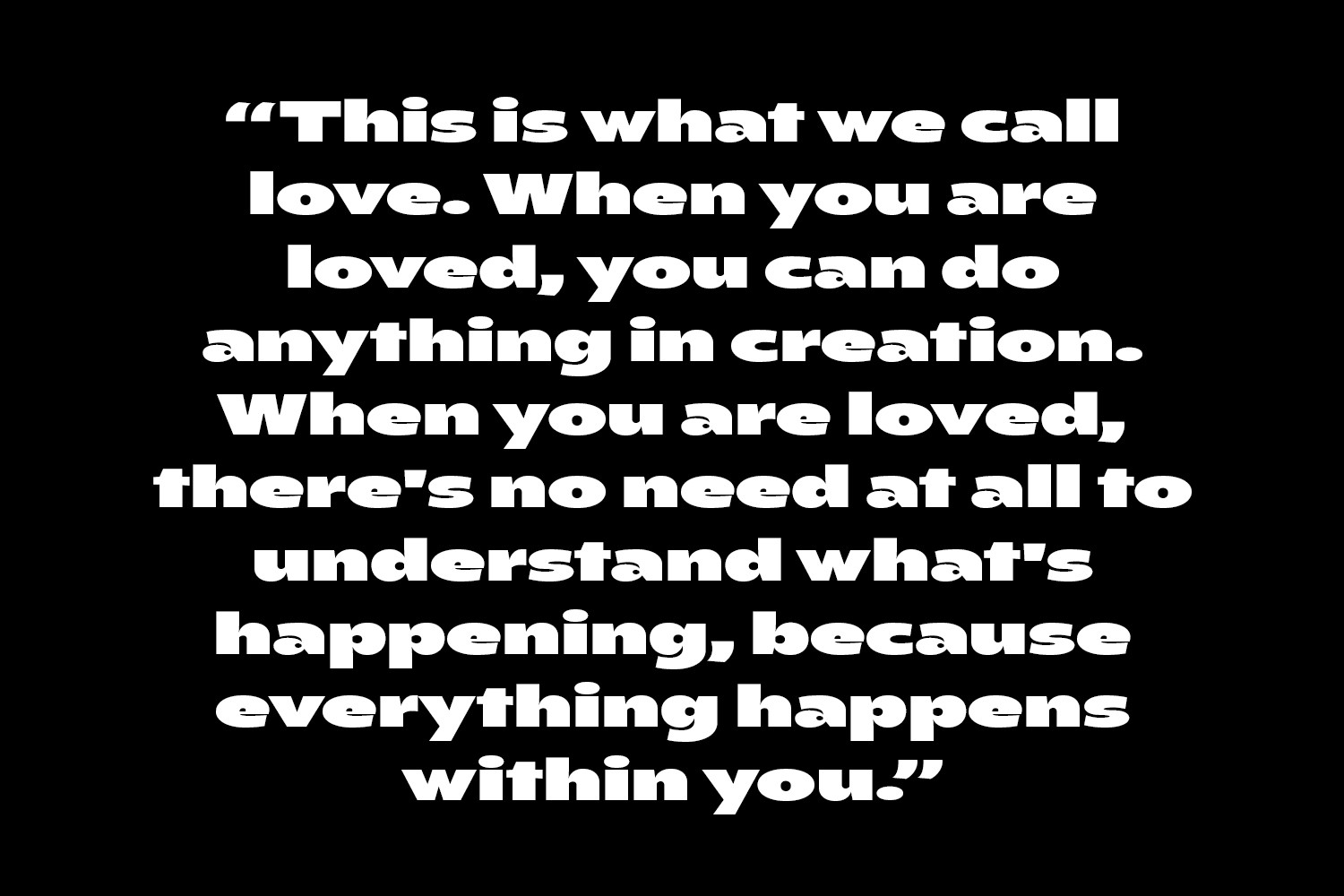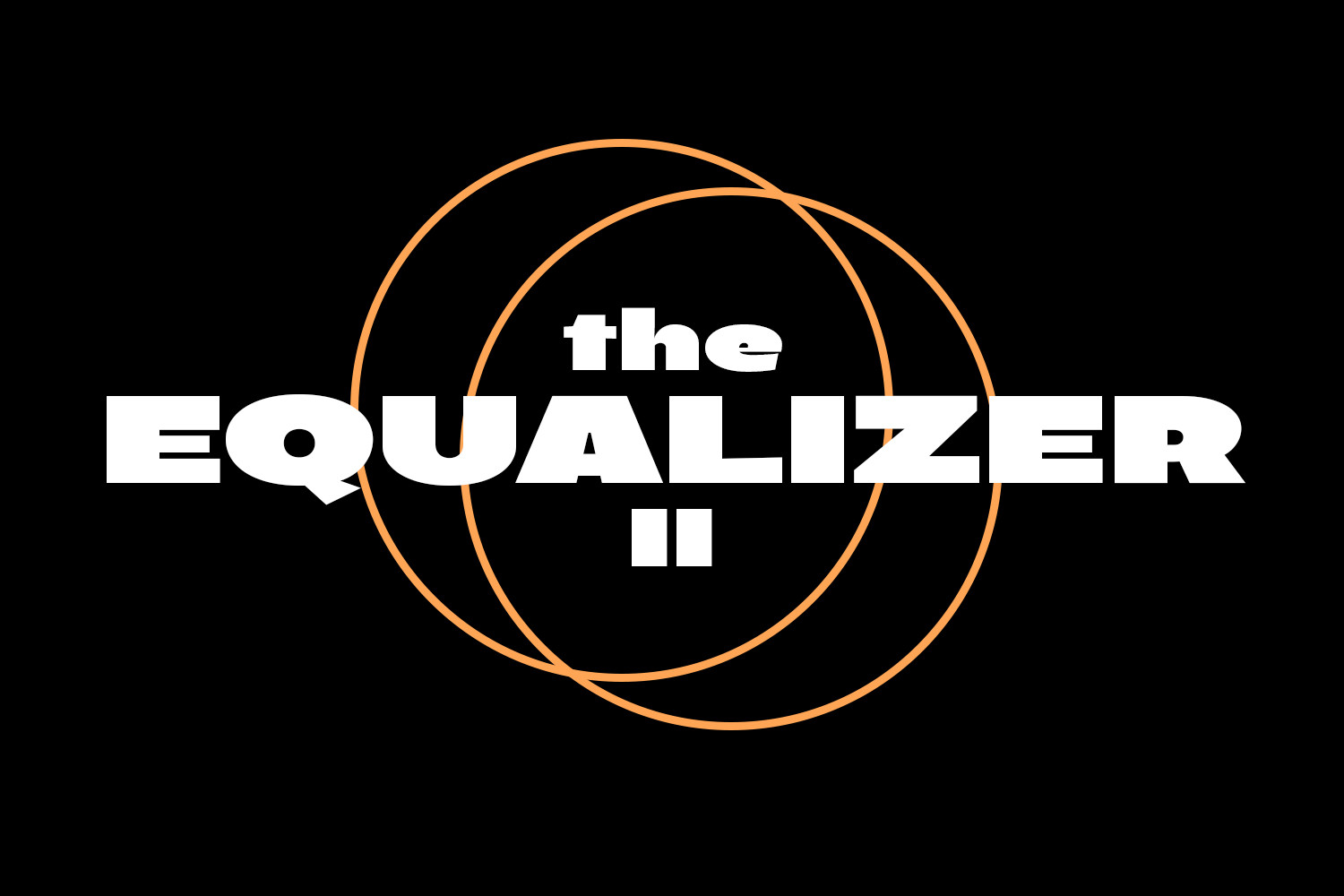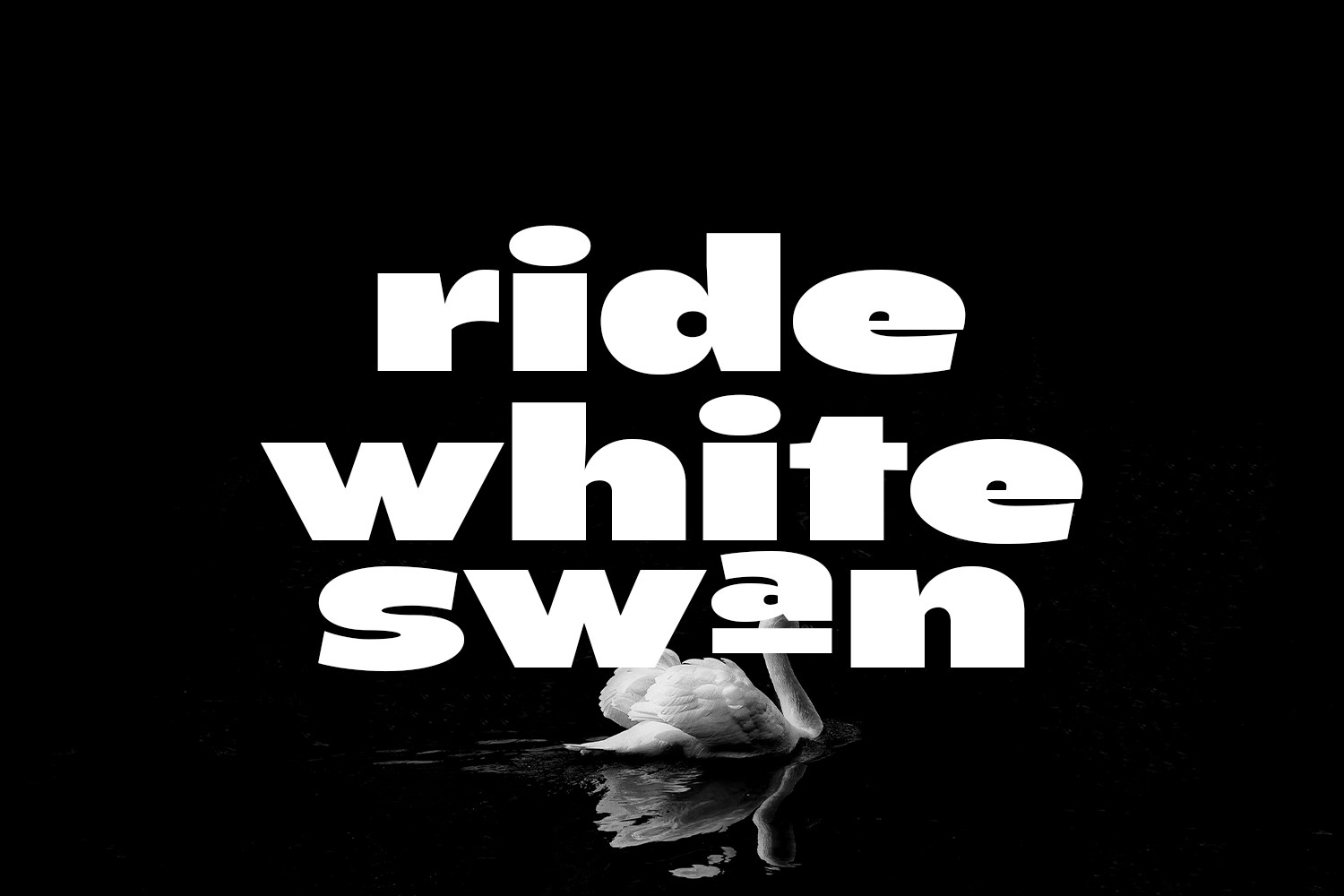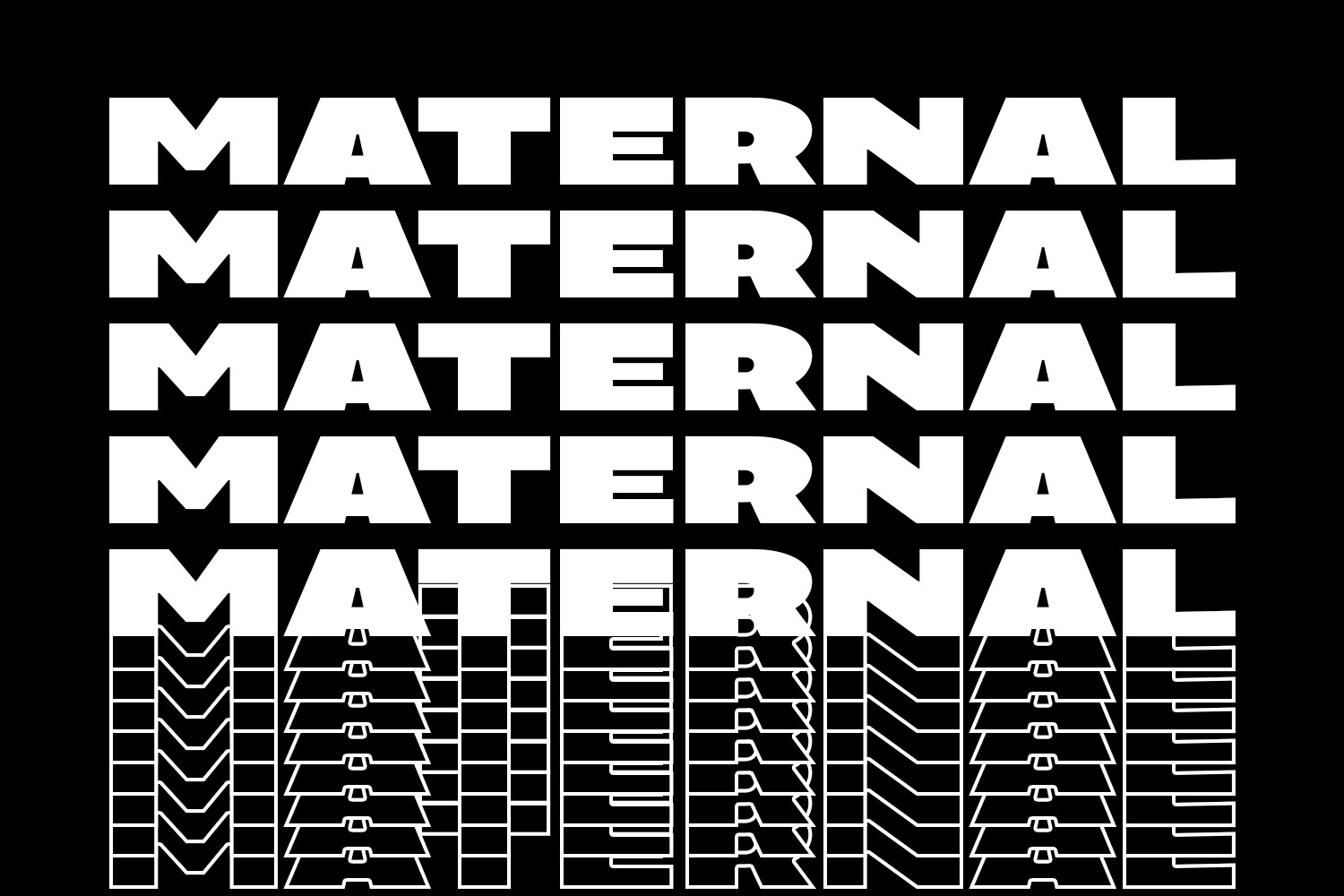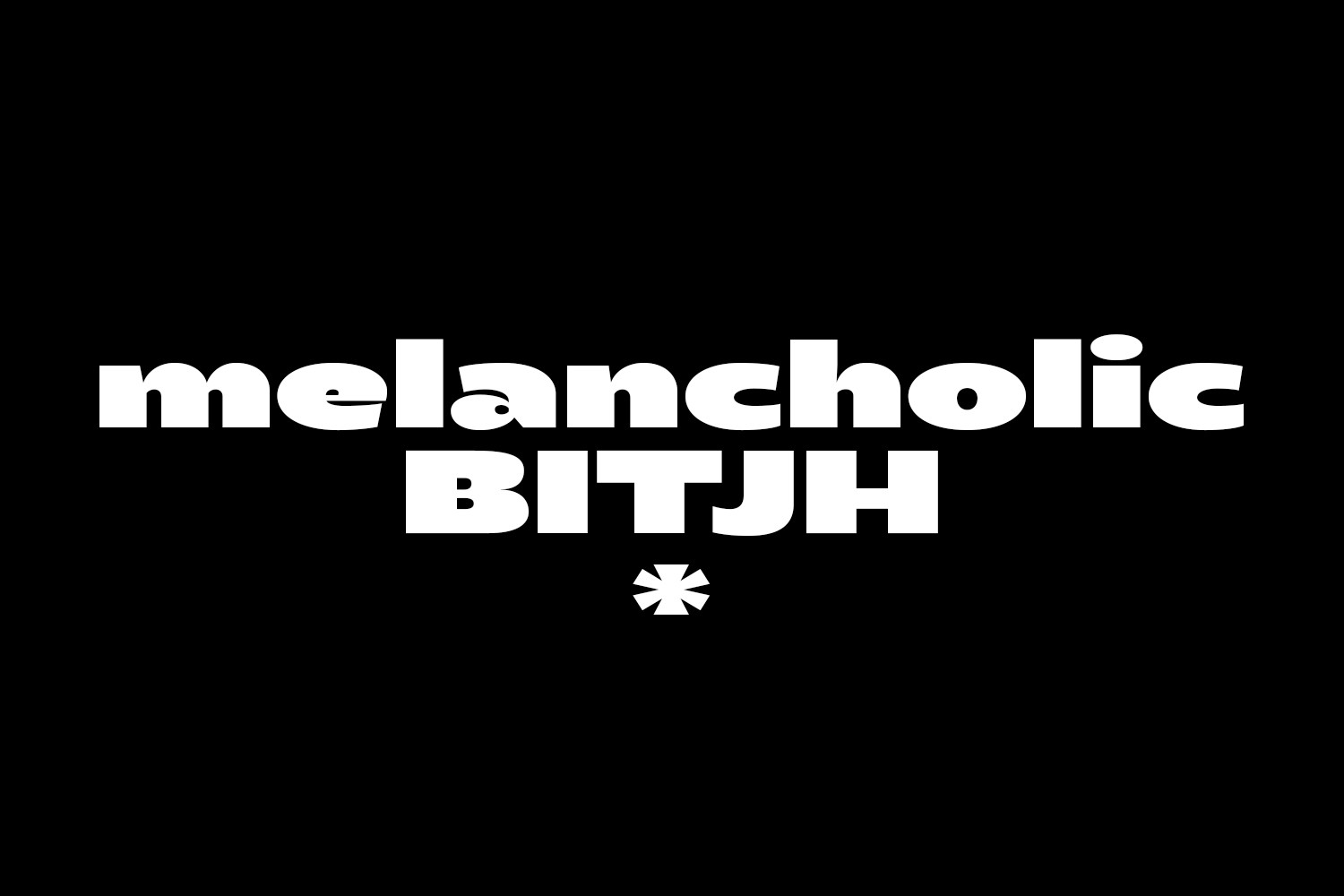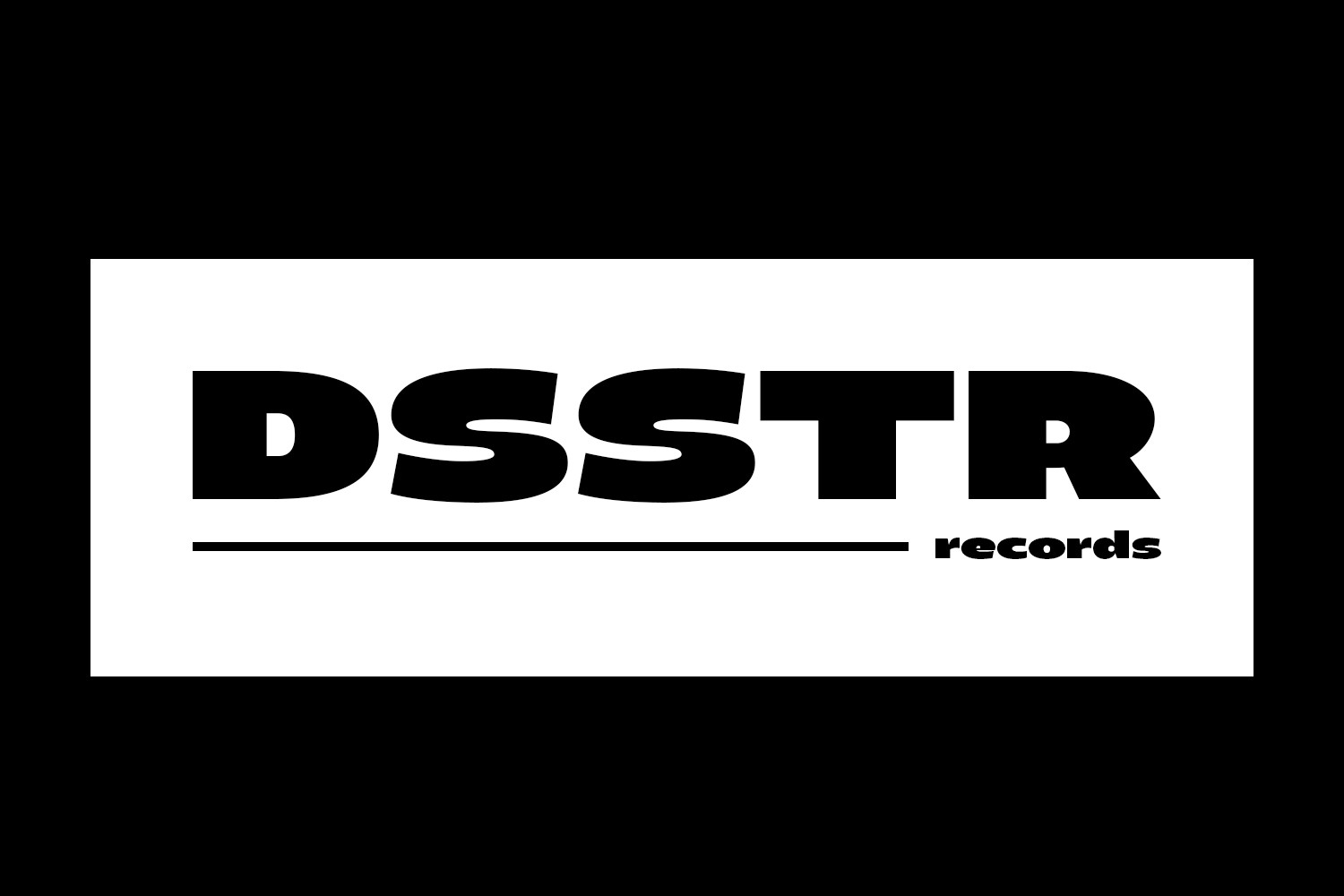
Introducing Geskal Font: The Ultimate Sans Display Font for Designers and Crafters
In the world of typography, a good font can make all the difference in the success of a design project. Whether you’re a seasoned designer or a crafty DIY enthusiast, having the right font in your arsenal can elevate your creations from ordinary to extraordinary. That’s where Geskal Font comes in – a wide, strong sans display font that’s about to become your new best friend.
What is Geskal Font?
Geskal is a modern sans serif font that’s designed to make a statement. Its wide and sturdy structure makes it perfect for headlines, titles, and any other display text that needs to grab attention. But Geskal is more than just a bold font – it’s also surprisingly versatile, making it suitable for a wide range of design applications.
Key Features of Geskal Font
- Wide and Strong: Geskal’s generous letter spacing and robust design make it perfect for creating eye-catching headlines and titles.
- Sans Serif: Geskal’s clean and minimalist sans serif design ensures that your text remains clear and legible, even at smaller sizes.
- Highly Versatile: Geskal can be used for a wide range of design projects, from posters and flyers to logos, branding, and even digital media.
- Easily Readable: Despite its bold design, Geskal remains highly readable, even at smaller sizes – making it perfect for body text and captions.
Why You’ll Love Geskal Font
So, what sets Geskal apart from other fonts in its class? For starters, its unique blend of strength and elegance makes it perfect for designers who want to create bold, yet refined designs. Additionally, Geskal’s wide range of uses means that you can rely on it for a variety of projects, from print materials to digital media.
But perhaps the best part about Geskal is its ability to enhance any creation. Whether you’re working on a logo, a poster, or a website, Geskal’s distinctive design is sure to elevate your work and make it stand out from the crowd.
How to Use Geskal Font in Your Designs
So, how can you start using Geskal in your designs? Here are a few ideas to get you started:
- Headlines and Titles: Use Geskal to create bold, eye-catching headlines and titles that grab attention and draw the reader in.
- Logos and Branding: Geskal’s strong, modern design makes it perfect for logos, branding, and other identity materials.
- Posters and Flyers: Add some impact to your posters and flyers with Geskal’s bold, attention-grabbing design.
- Digital Media: Use Geskal to add a professional touch to your digital media, from website headers to social media graphics.
In conclusion, Geskal Font is a wide, strong sans display font that’s sure to become a valuable asset in your design library. Its unique blend of strength, elegance, and versatility makes it perfect for a wide range of design applications – from print materials to digital media.